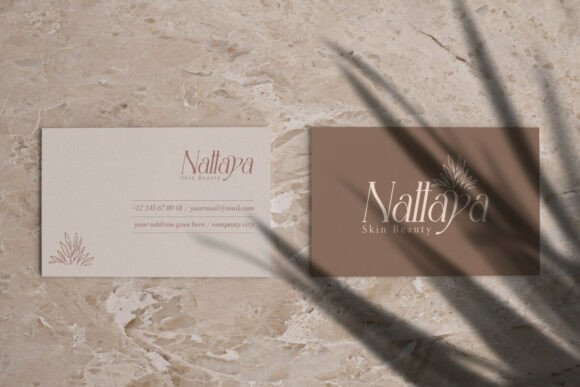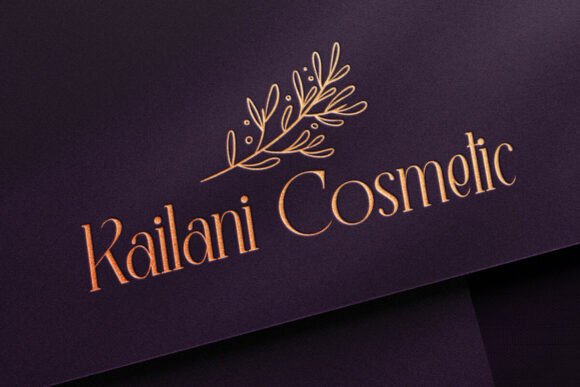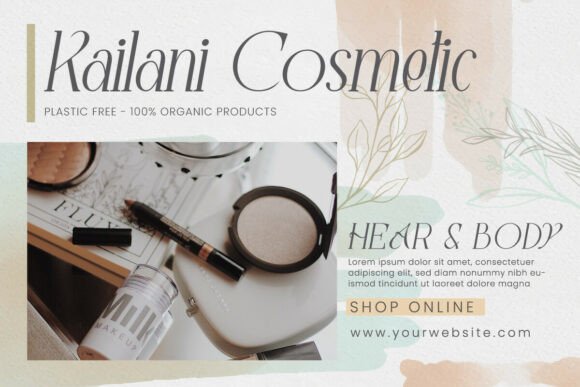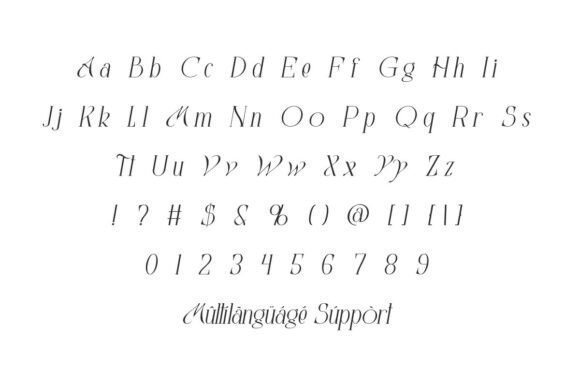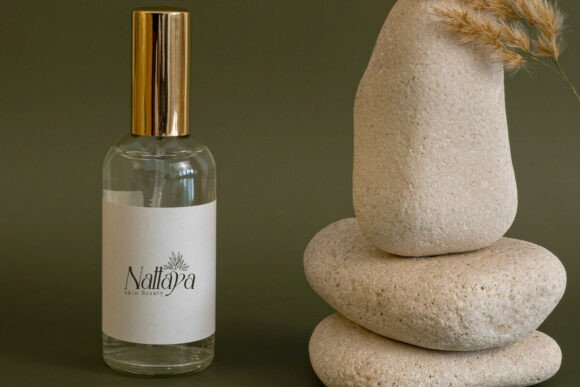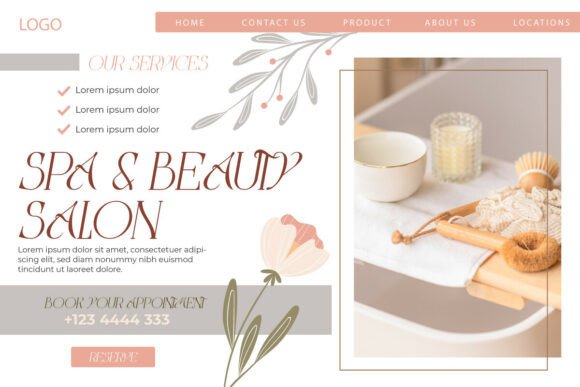
Introduction to Glowings Font Font
Fonts play a crucial role in design, and the Glowings Font font is a typeface that brings both character and versatility to any project. Whether you’re working on a branding project, a website, or a print design, the Glowings Font font offers a unique style that can elevate your work.
Glowings Font is a modern, sophisticated serif display font with an italic type that dares to be different and expressive.
It is ready to elevate the visuals of your design with extraordinary elegance It will be perfect for card design, headers, labels, mockups, product packaging, stationery, titles, website, and much more.
Key Features of Glowings Font Font
Why Choose Glowings Font Font?
The Glowings Font font is more than just a typeface – it’s a design tool that helps you communicate your message with style and clarity. Its unique character set and versatile design make it suitable for a wide range of applications, from elegant invitations to bold headlines.
With its carefully crafted letterforms and balanced proportions, the Glowings Font font ensures readability and visual appeal across all mediums.
What makes Glowings Font font special?
The Glowings Font font stands out with its unique design, exceptional readability, and versatility across various design applications.